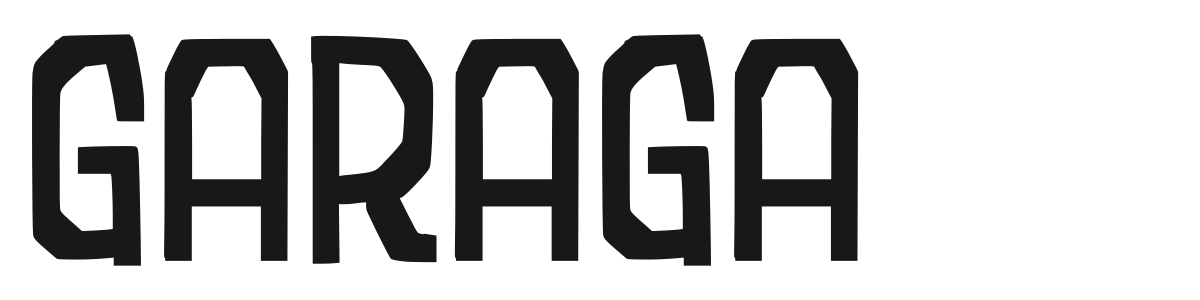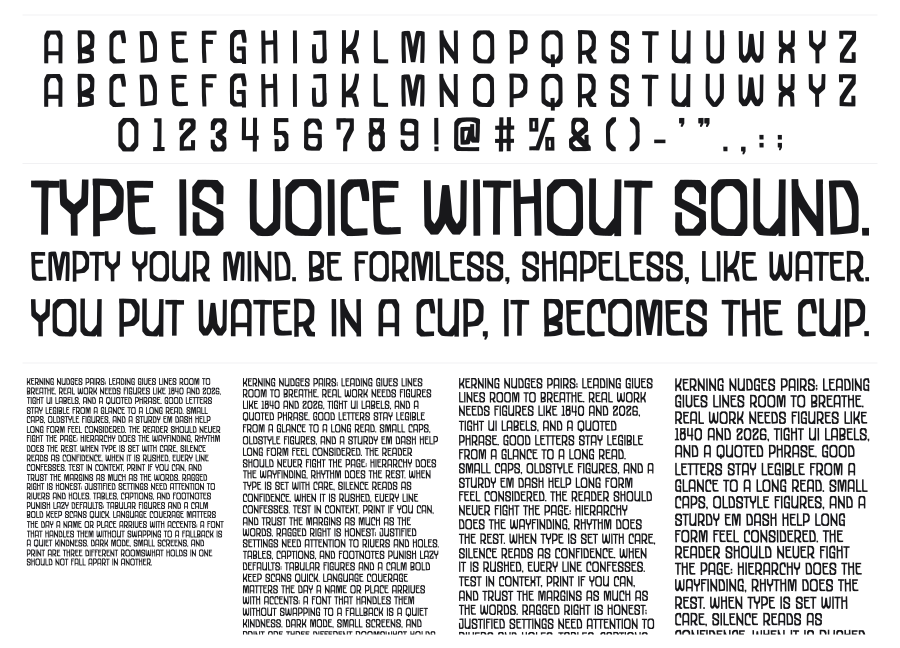
Garaga
Garaga is a condensed bold display sans with a strong retro-industrial character, built from tall narrow letters with flat squared tops and subtle notched details at stroke junctions. The heavy weight and tight spacing give it a commanding presence reminiscent of early 20th-century signage and propaganda lettering. It works best at large sizes where its textural details and blocky silhouette read clearly.